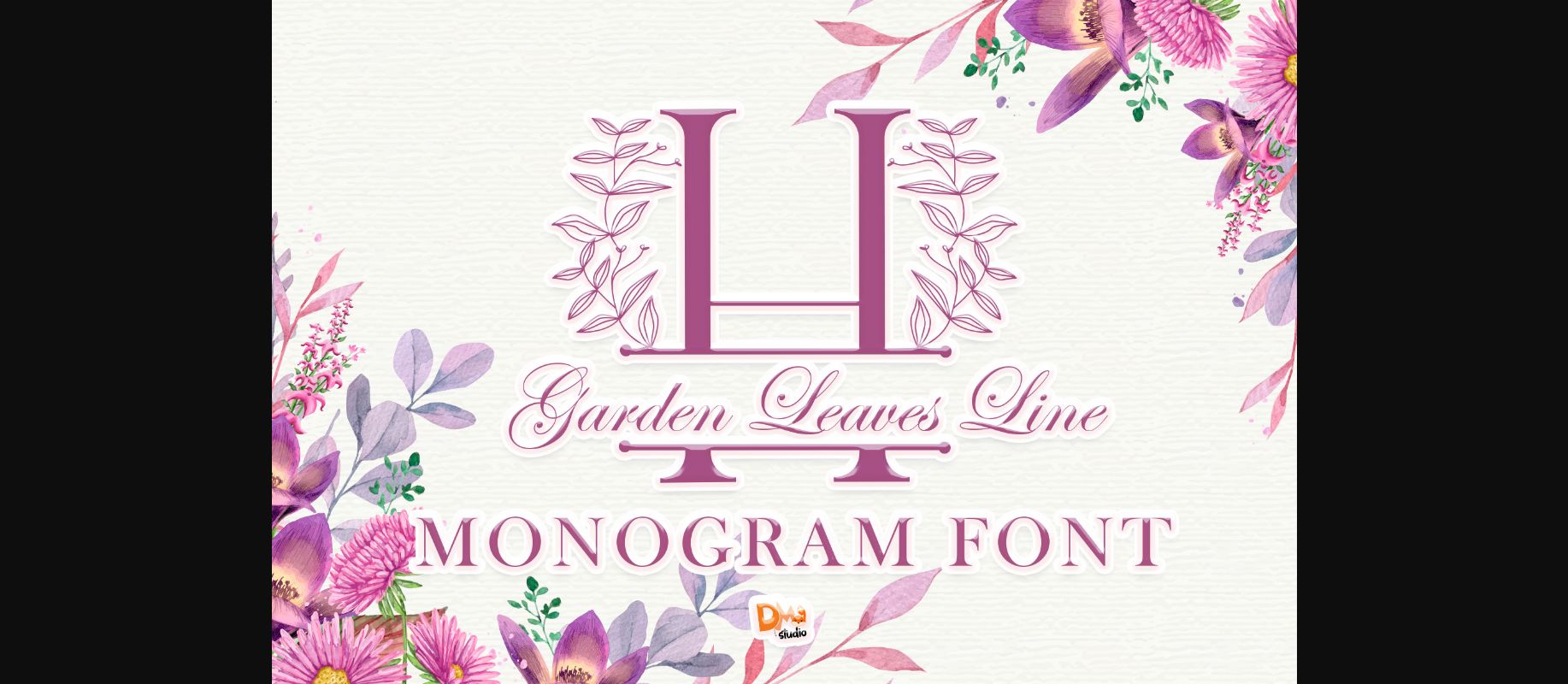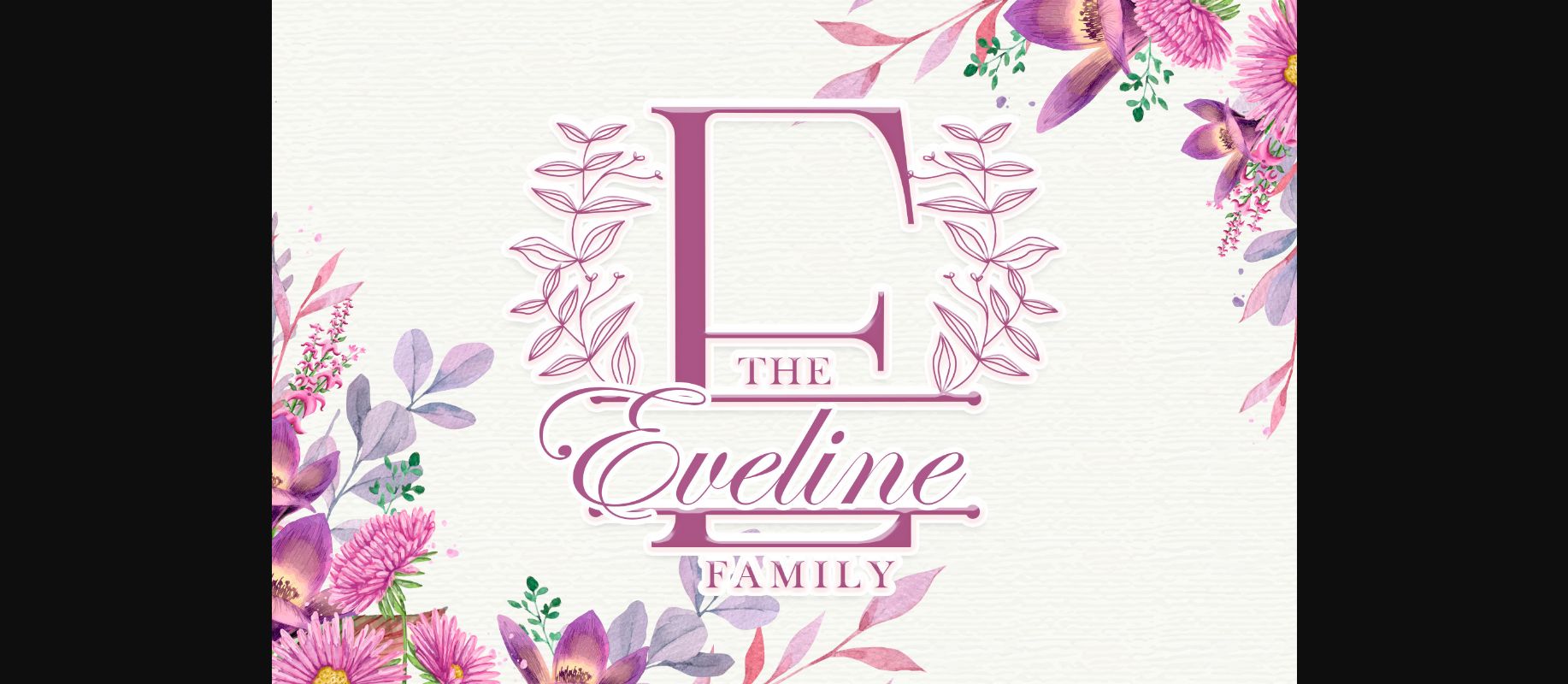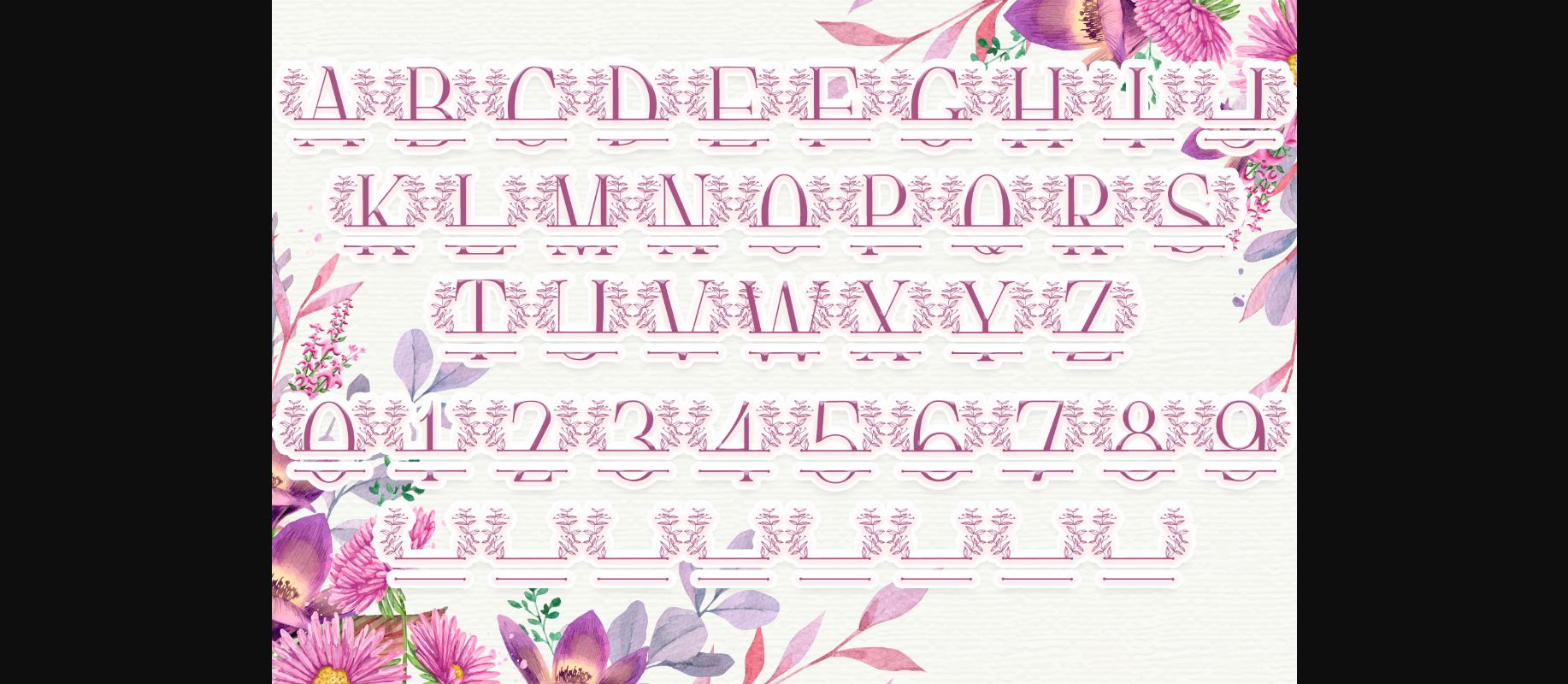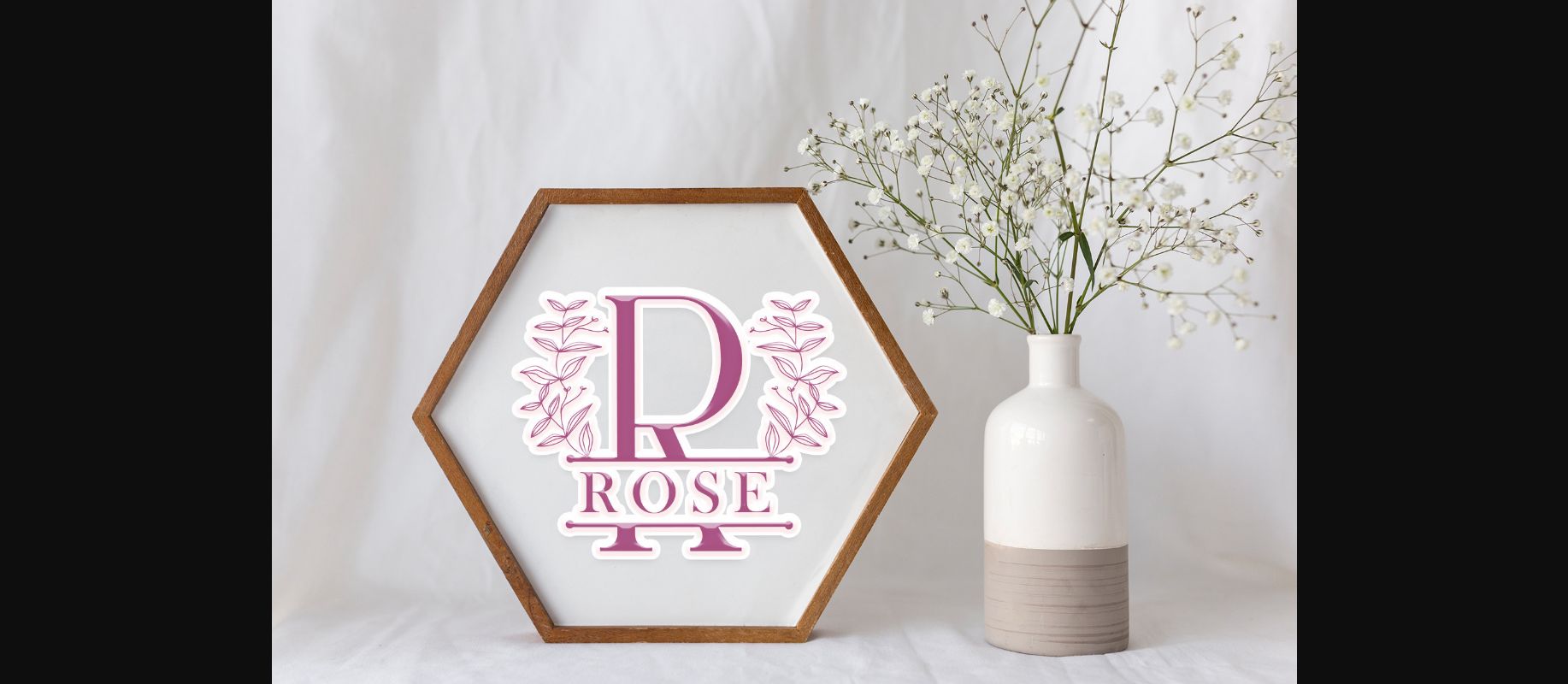
About Garden Leaves Line Font
Garden Leaves Line is a lovely, elegant, and unique decorative font. It’s a combination of elegant characters and beautiful, fresh leaf wreaths, obtaining a look that can elevate any crafty idea!